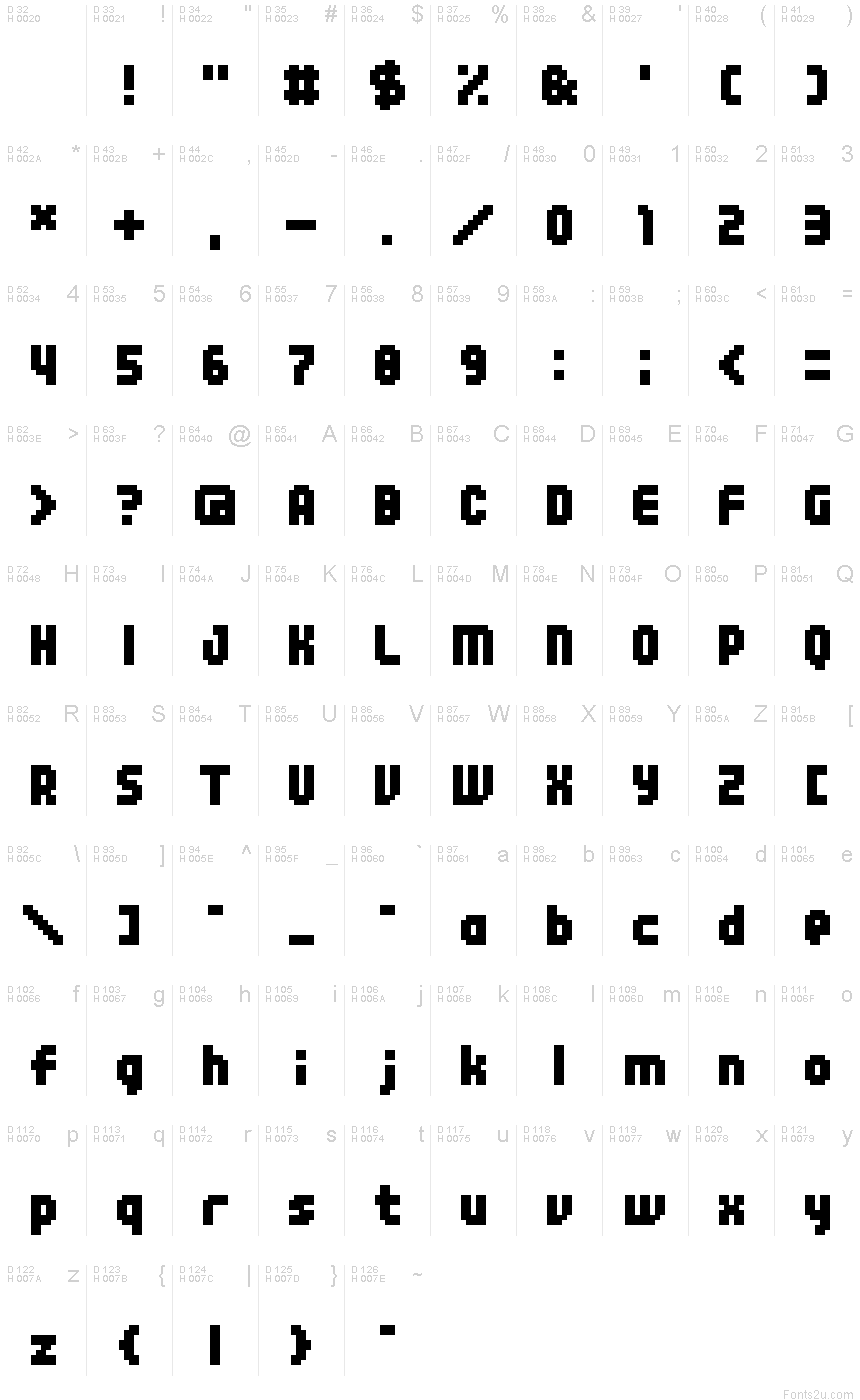
04b_25
04b_25 is a bold, pixel-perfect font that exudes a retro-futuristic charm. Its condensed, blocky letterforms create a striking, pixelated aesthetic, evoking nostalgic memories of classic video games and vintage digital displays. This font's unique design lends itself well to a range of applications, from bold headings and logos to eye-catching text overlays in modern visual media. Its bold presence and condensed width make it a standout choice for creating impactful, attention-grabbing designs.
The clean, minimalist style of 04b_25 allows it to seamlessly integrate into a variety of design contexts, from retro-inspired branding to cutting-edge digital interfaces.